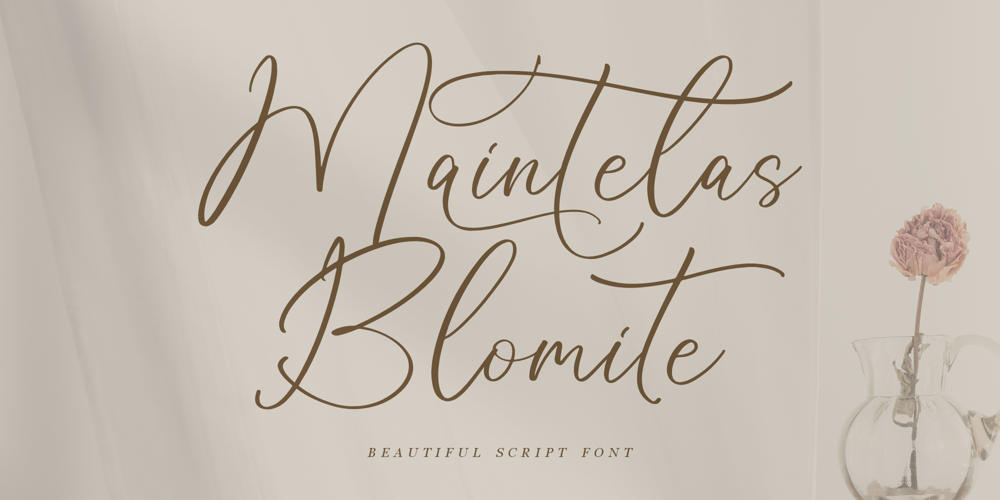
Maintelas Blomite Font Family was designed by Heru Utama Putra and published by Letterena Studios. Maintelas Blomite contains 2 styles and family package options. Maintelas Blomite is a beautiful, luxurious, unique, and modern script font perfect for elegant and luxury logos, book or movie title designs, fashion brands, magazines, clothes, lettering, quotes, and so much more.This font is PUA encoded, which means you can access all of the glyphs and swashes with ease!